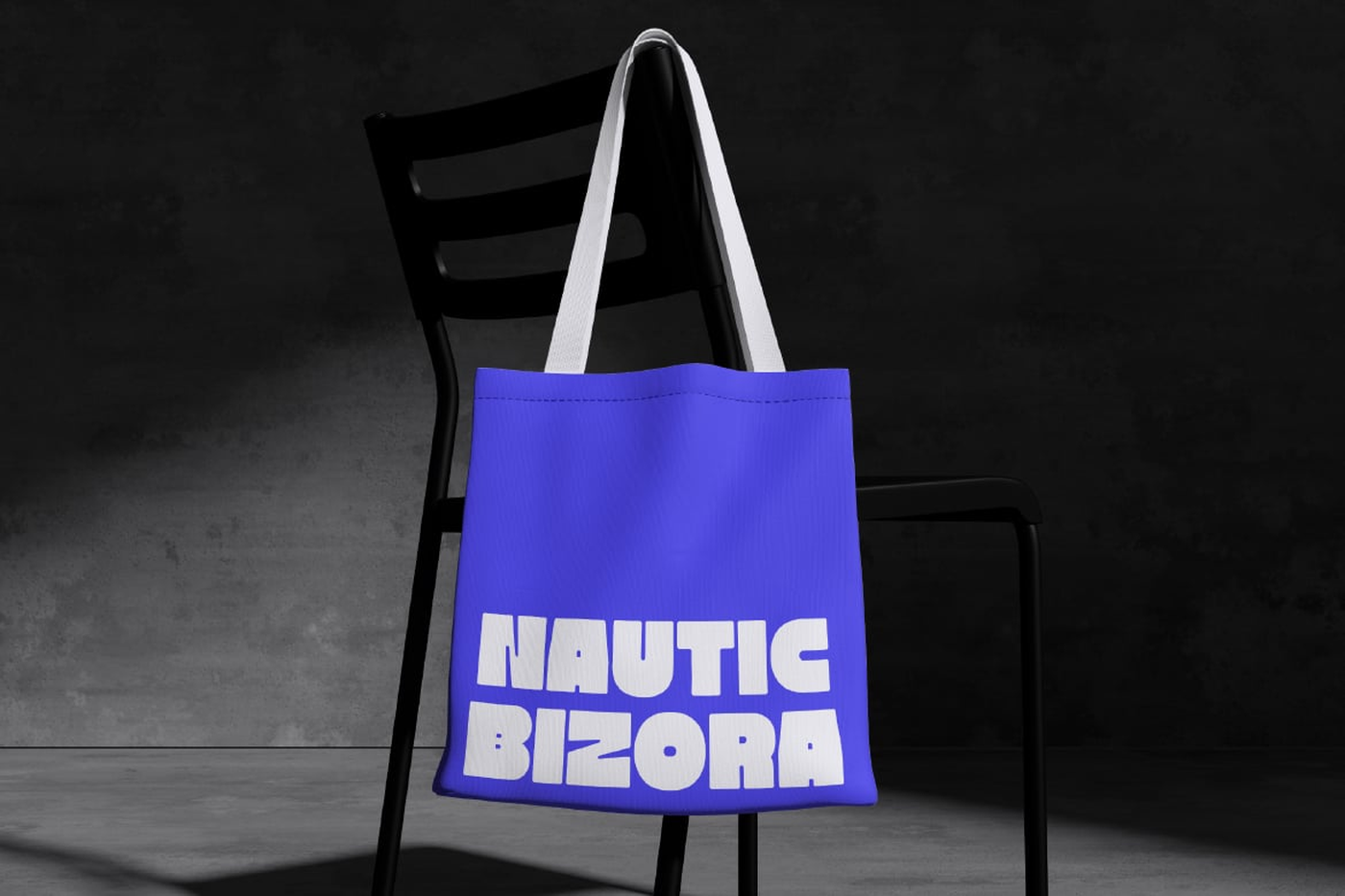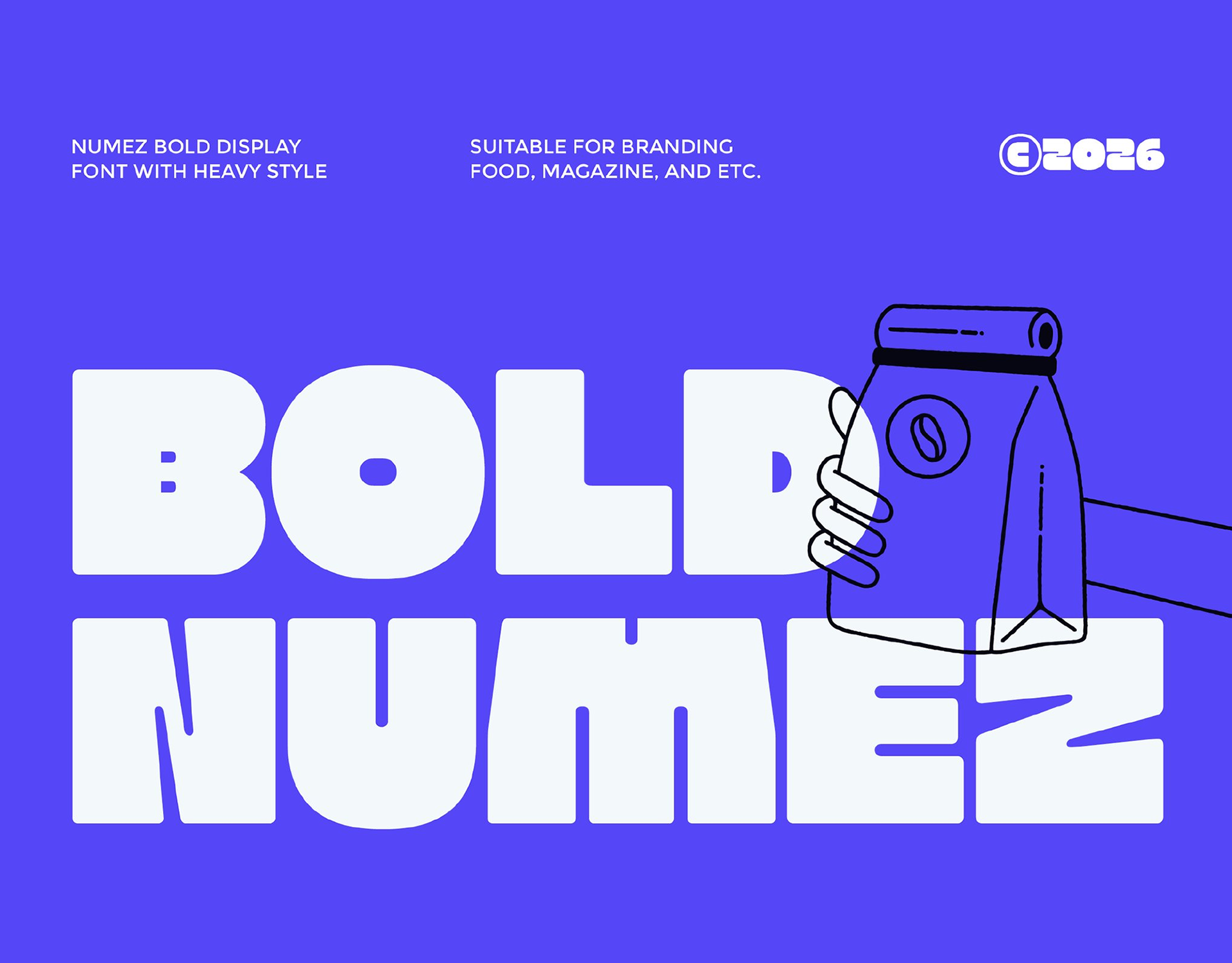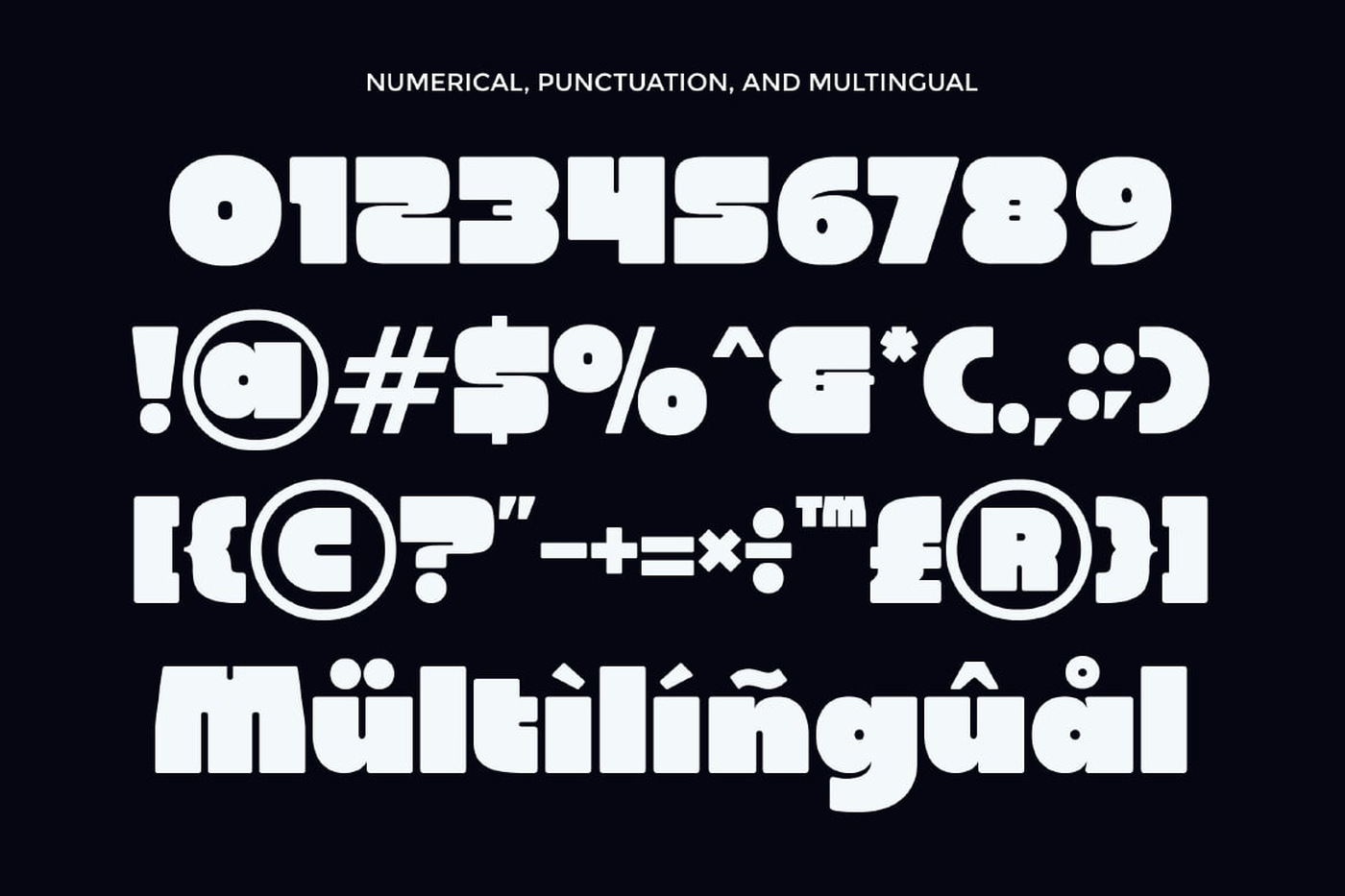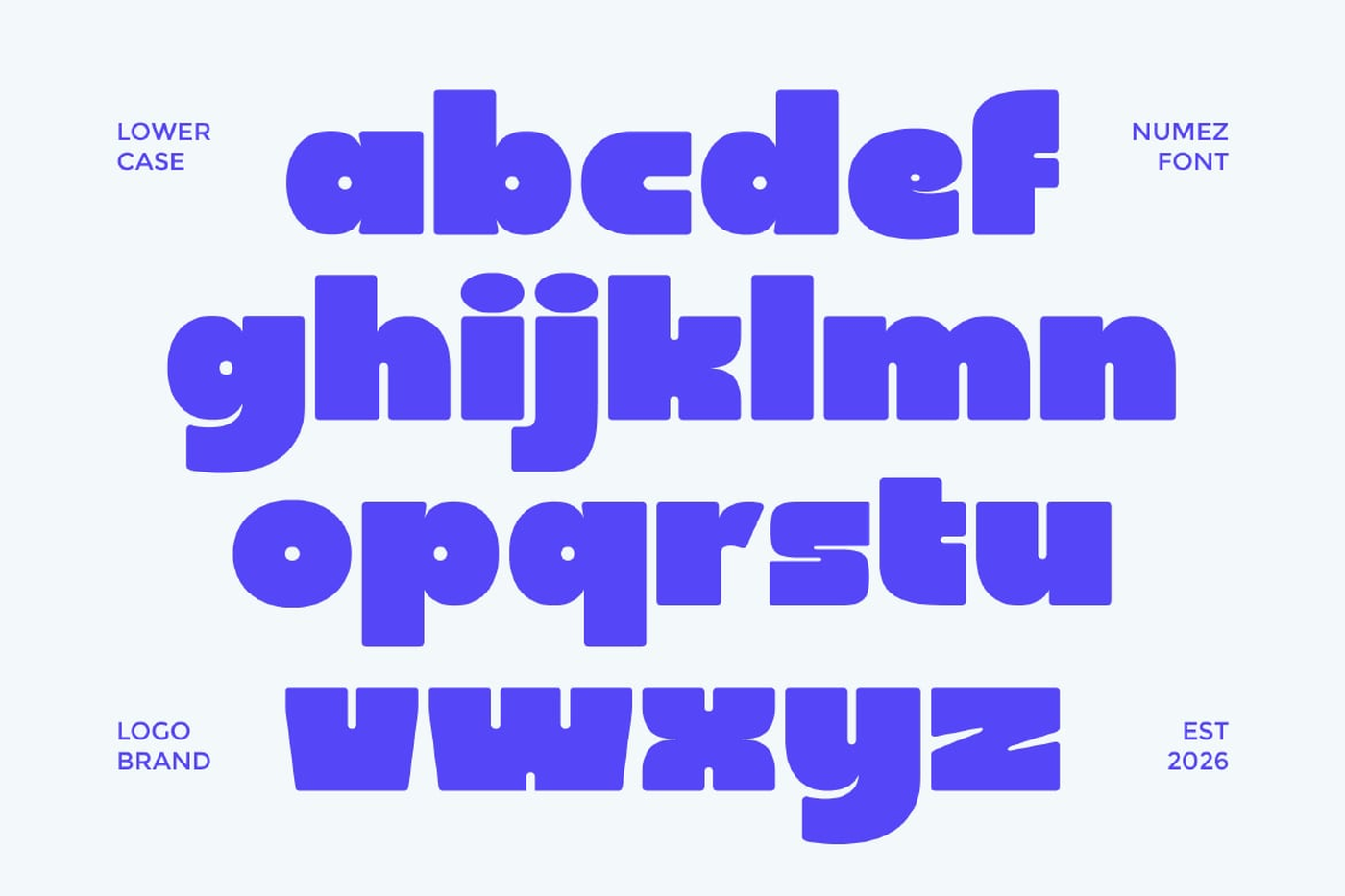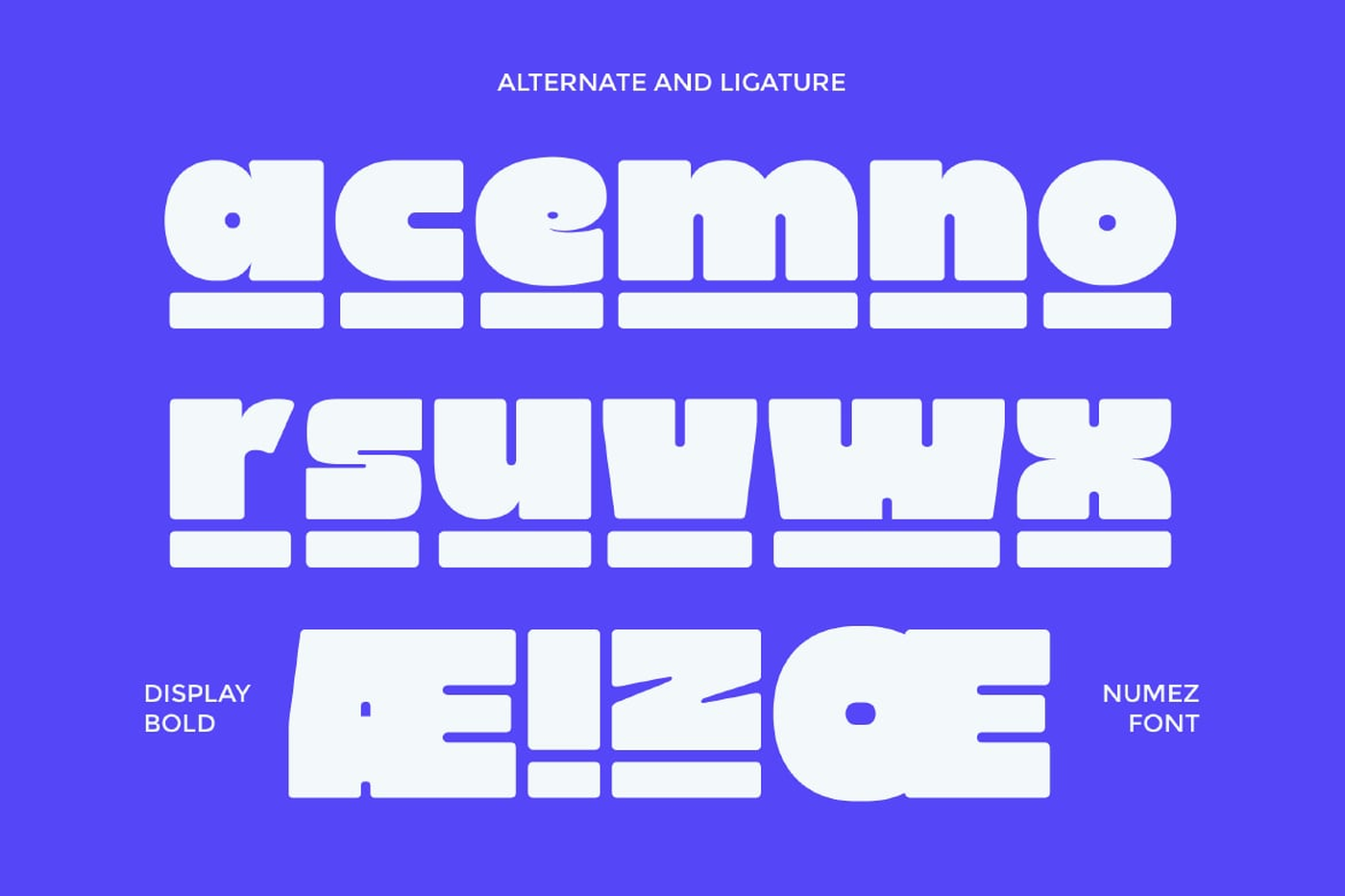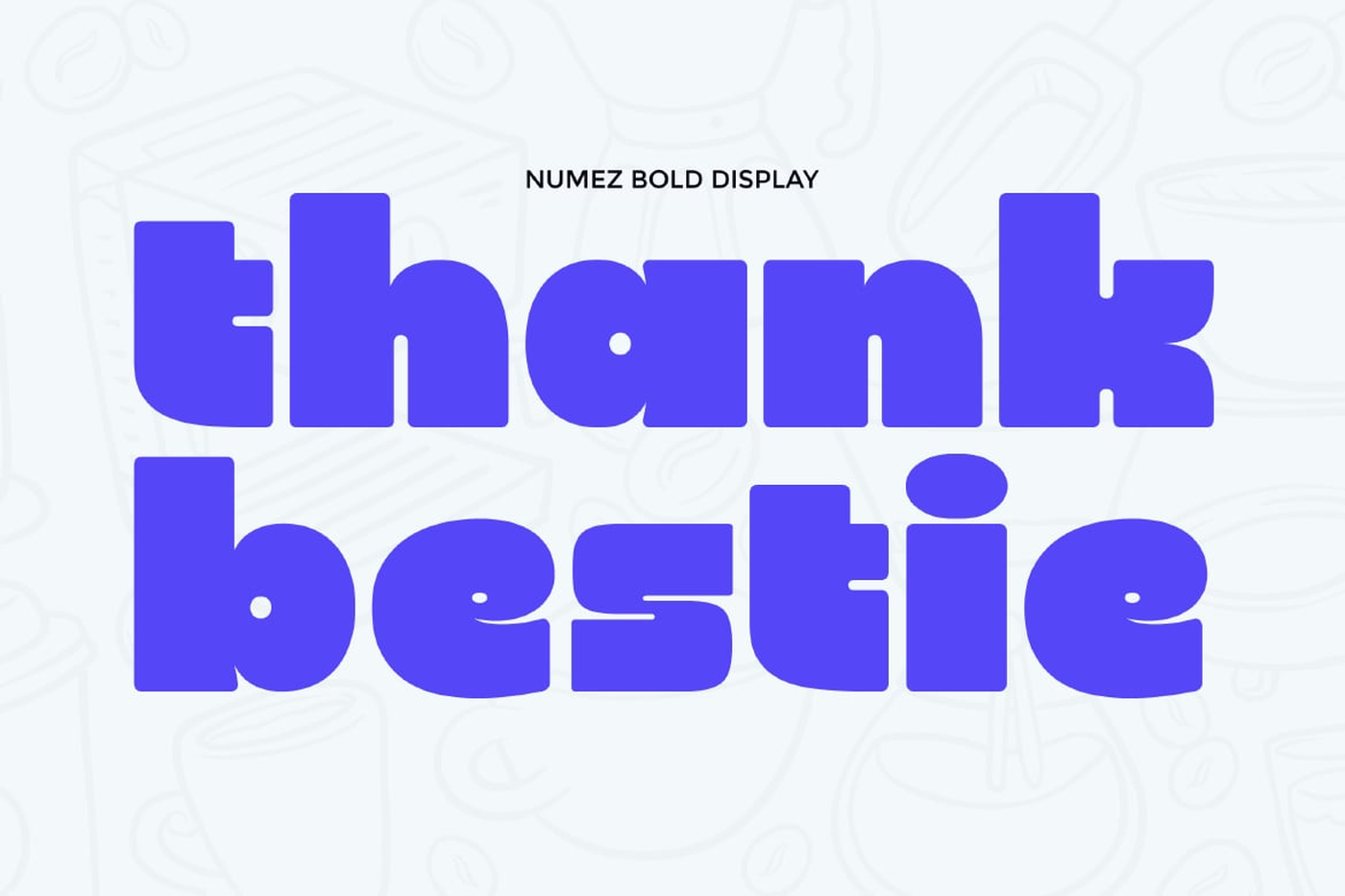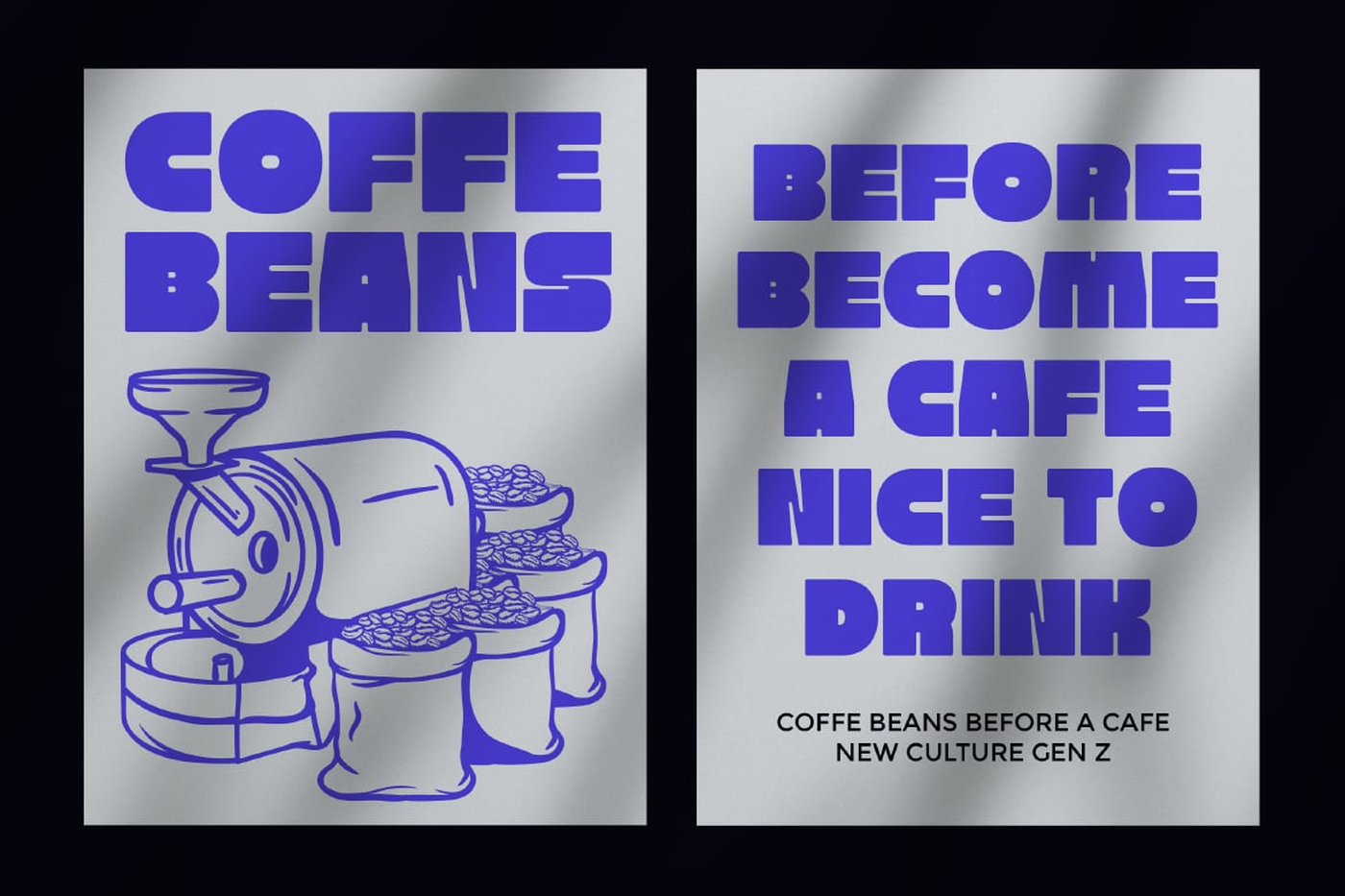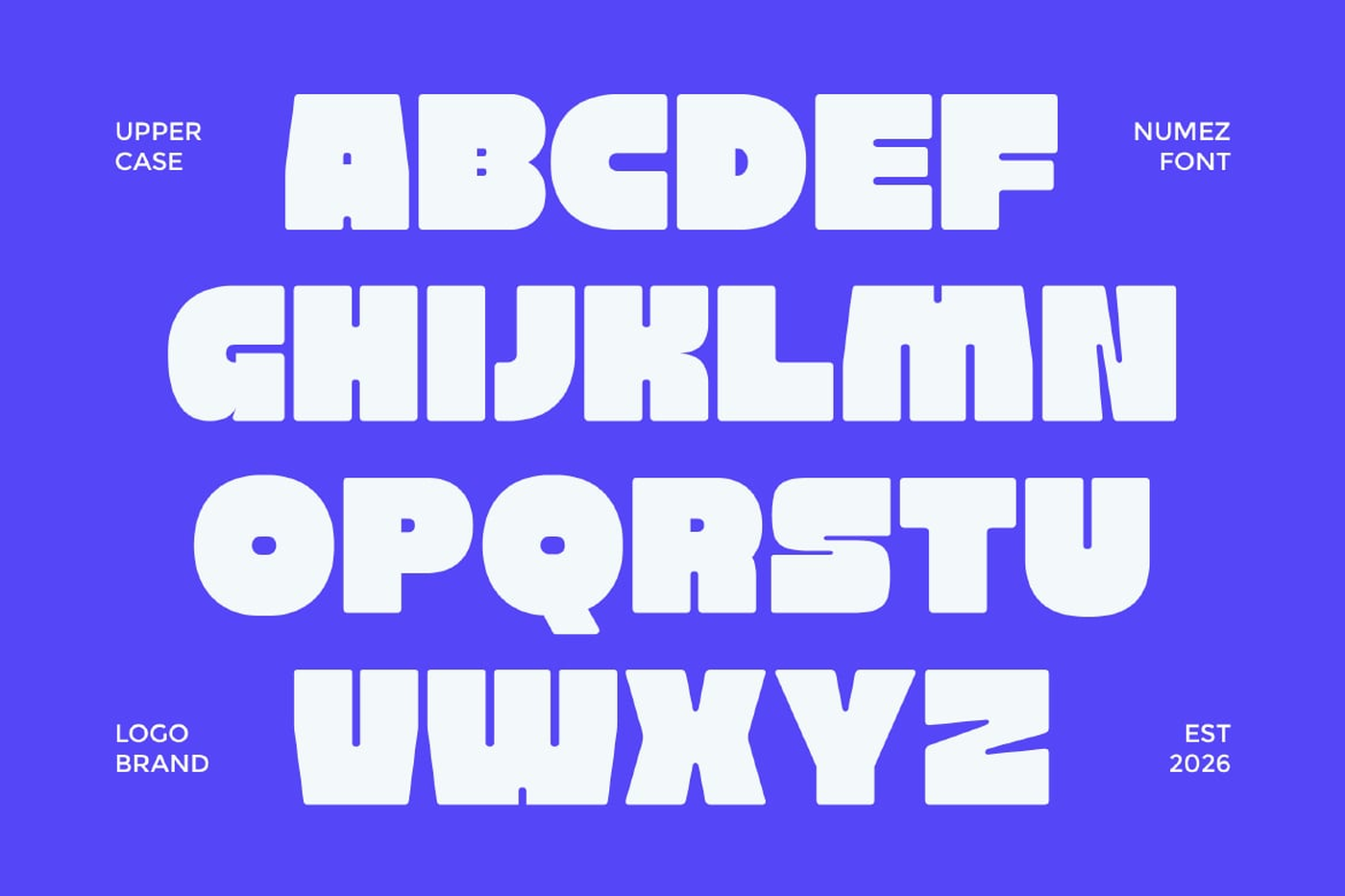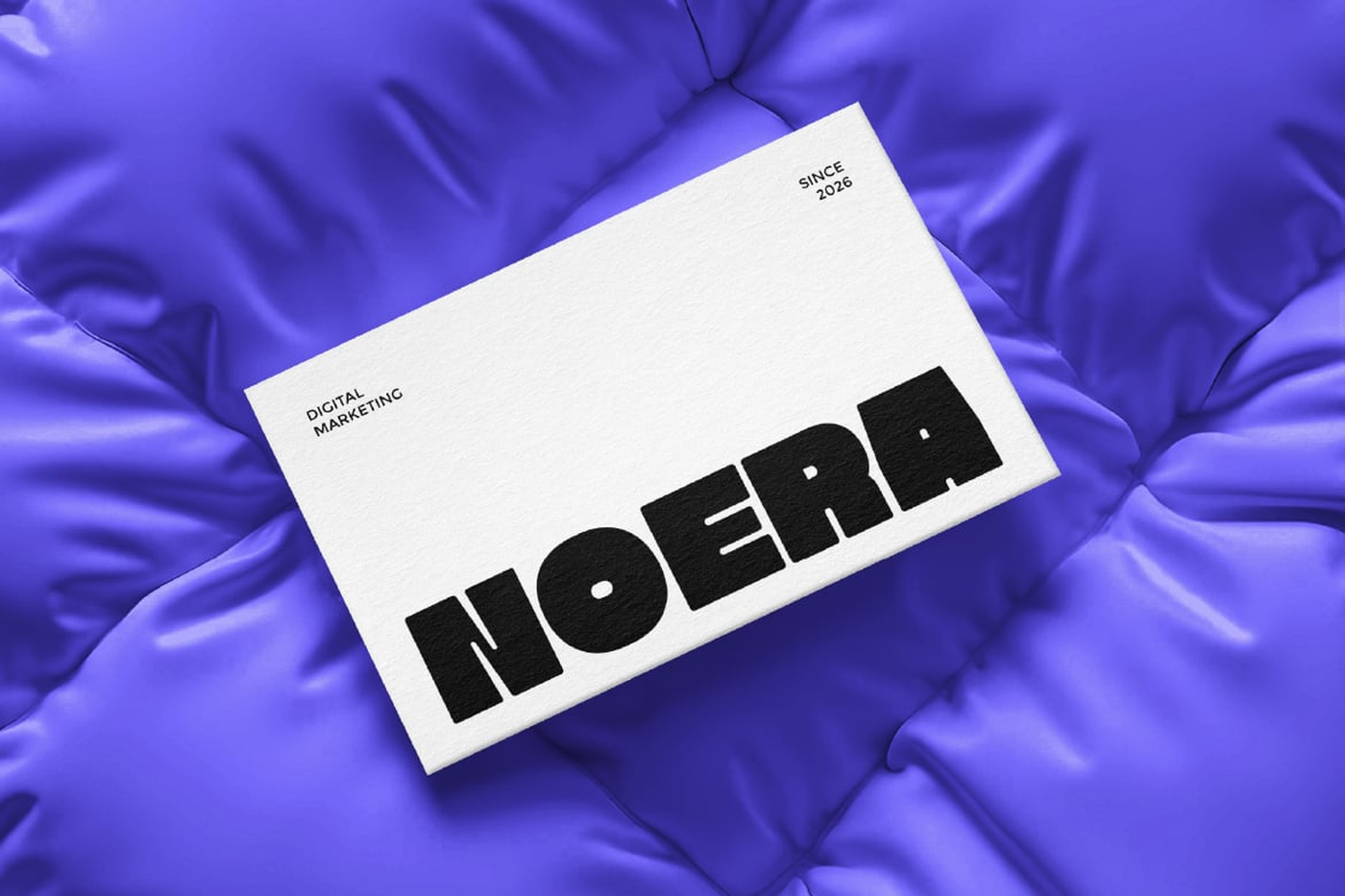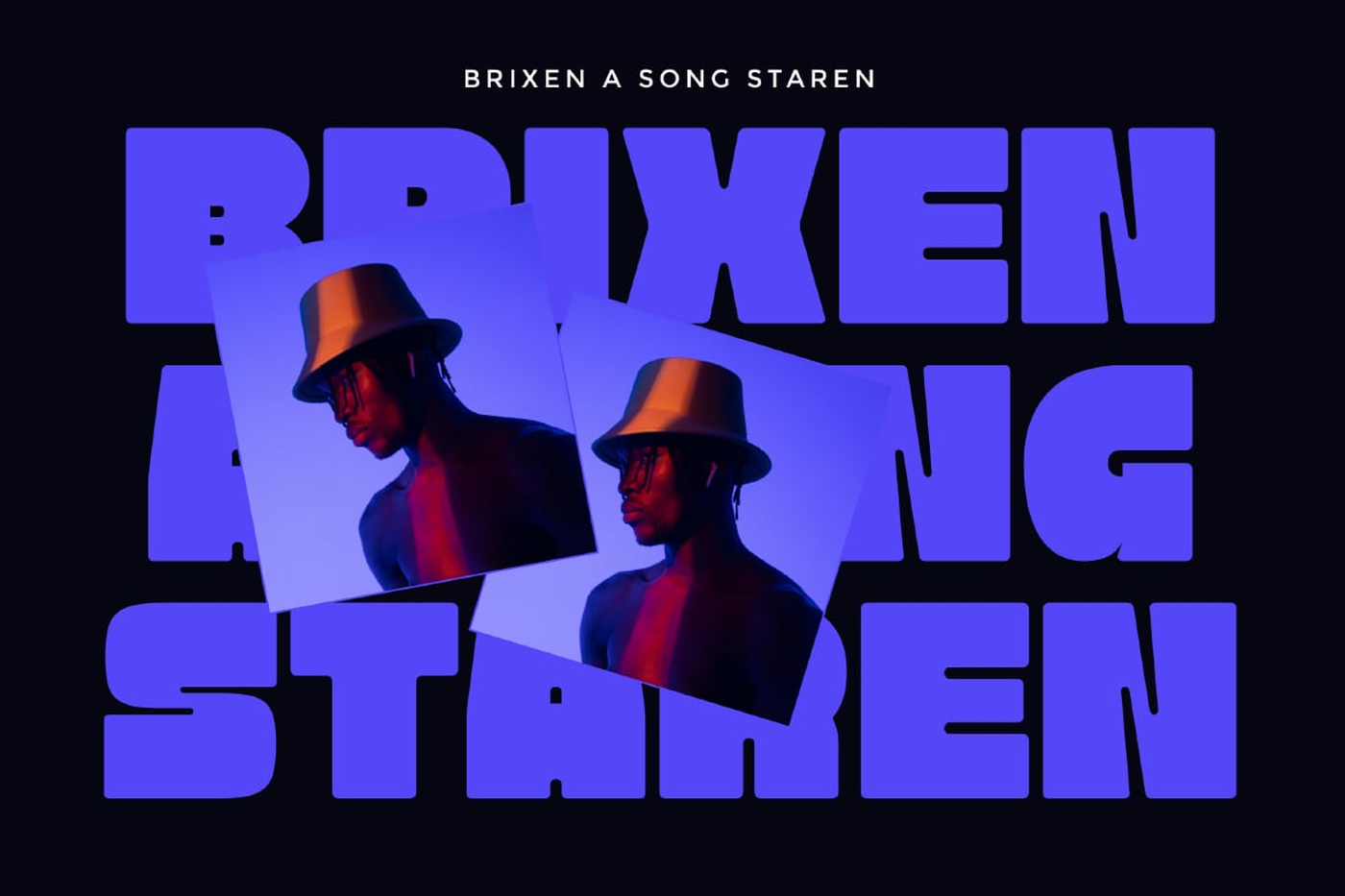
Bold Numez - Bold Display Font
Bold Numez is a bold display font with a heavy, solid style designed to create powerful visual impact. Featuring thick strokes, rounded forms, and confident proportions, Bold Numez delivers a strong and modern character that instantly captures attention. Perfect for branding, food packaging, magazines, posters, headlines, logos, and promotional designs, Bold Numez ensures maximum readability while adding a fun and energetic feel to any layout.
Font: Bold Numez